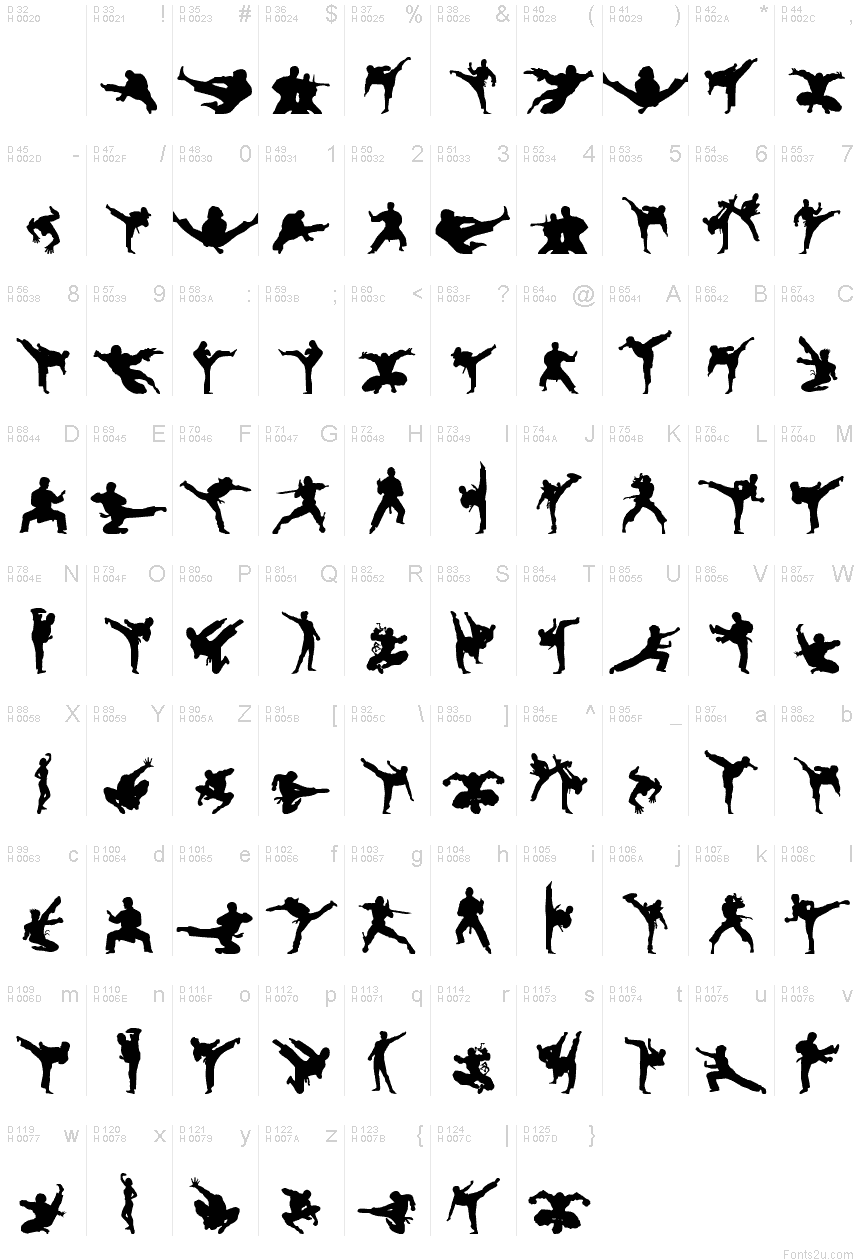
Karate Chop, by Daniel Zadorozny of Iconian Fonts, is a free martial arts dingbat font built from solid silhouettes of fighters in action. The figures use broad, clear poses built around sweeping kicks and raised guards.
Sports branding and arcade-style game graphics draw on the same combative imagery, though it also fits tournament posters and training apparel. For a dojo or equipment label, each fighter can act as an emblem tied to the brand.